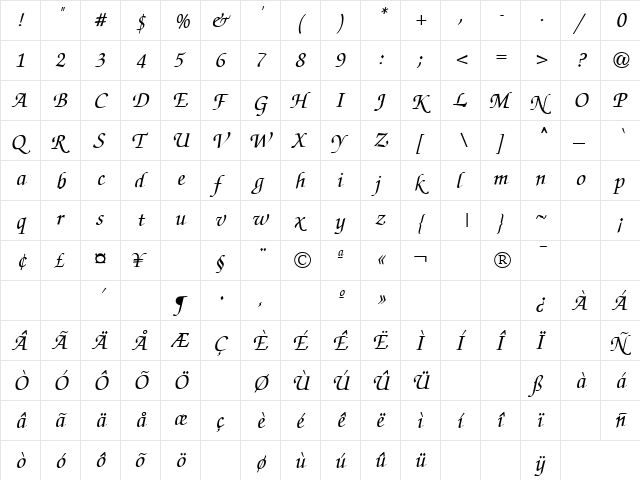
Request Regular
Design Context for Request Typeface
Request is a composed and adaptable typeface that performs quietly and consistently across a wide range of design contexts.